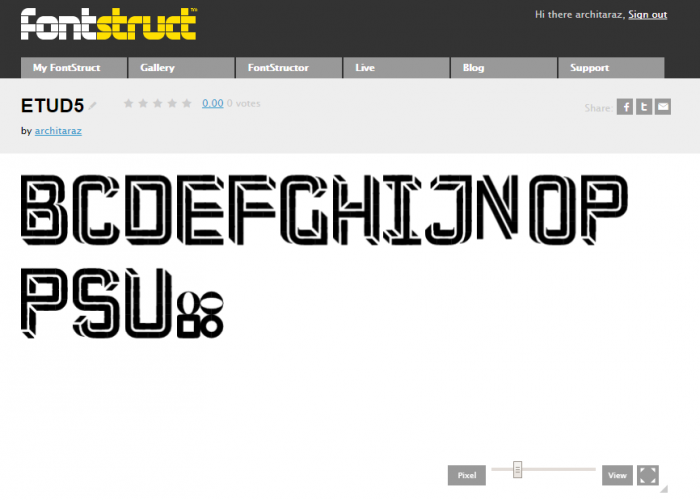
• I once saw a Macula font's ad here in Fontsruct and wanted to try to make smth similar with Fontstructor, and so the draft has been laying around since February (see the image in comments). This work is based off that draft and is more or less consistent. The result is similar to Four's font Rock Paper Scissors (and maybe some other fonts). Thank you.
I once saw a Macula font's ad here in Fontsruct and wanted to try to make smth similar with Fontstructor, and so the draft has been laying around since February (see the image below). This work is based off that draft and is more or less consistent. The result is similar to Four's font Rock Paper Scissors (and maybe some other fonts). Thank you.
With those rounded corners the glyphs look like they have been made with 'seaside rock' :)
Excellent twisty work architaraz, I prefer this over Rock Paper Scissors!
Your twisty font has earned the TP :) It looks like its dancing with pleasure.
Pretty good font, but you could have at least supported all of basic latin.